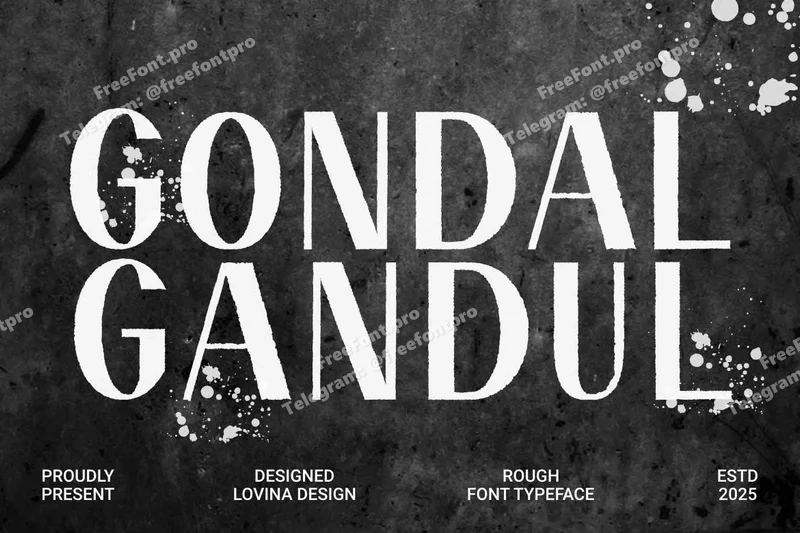
GondalGandul – Modern Serif Typeface
Introducing GondalGandul – Modern Serif Typeface, a sophisticated sans serif typeface designed for timeless elegance and a modern design aesthetic. With graceful curves, subtle contrasts, and stylish ligatures, it’s designed to bring luxury and refinement to your creative projects.
Ideal for branding, logos, fashion editorials, wedding invitations, packaging design, social media posts, and high-end advertising, this typeface accentuates every detail with a sense of exclusivity and artistic charm. Its stylish alternates and multilingual support ensure flexibility for both display and editorial use.
Bring your brand to life with GondalGandul Serif, designed for impactful, modern branding.
Font Features
Perfect For
. Elegant Branding . Fashion Logos . Editorial Design . Wedding Invitations . Luxury Packaging . Social Media Templates